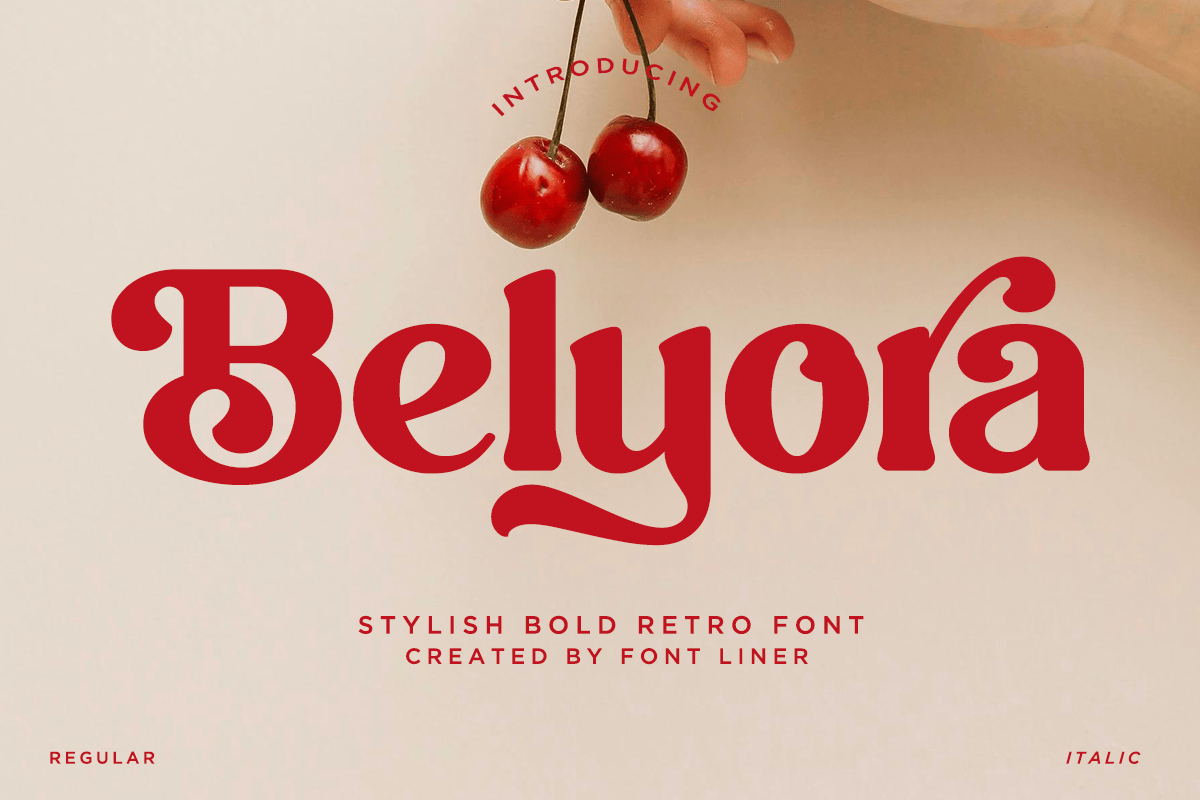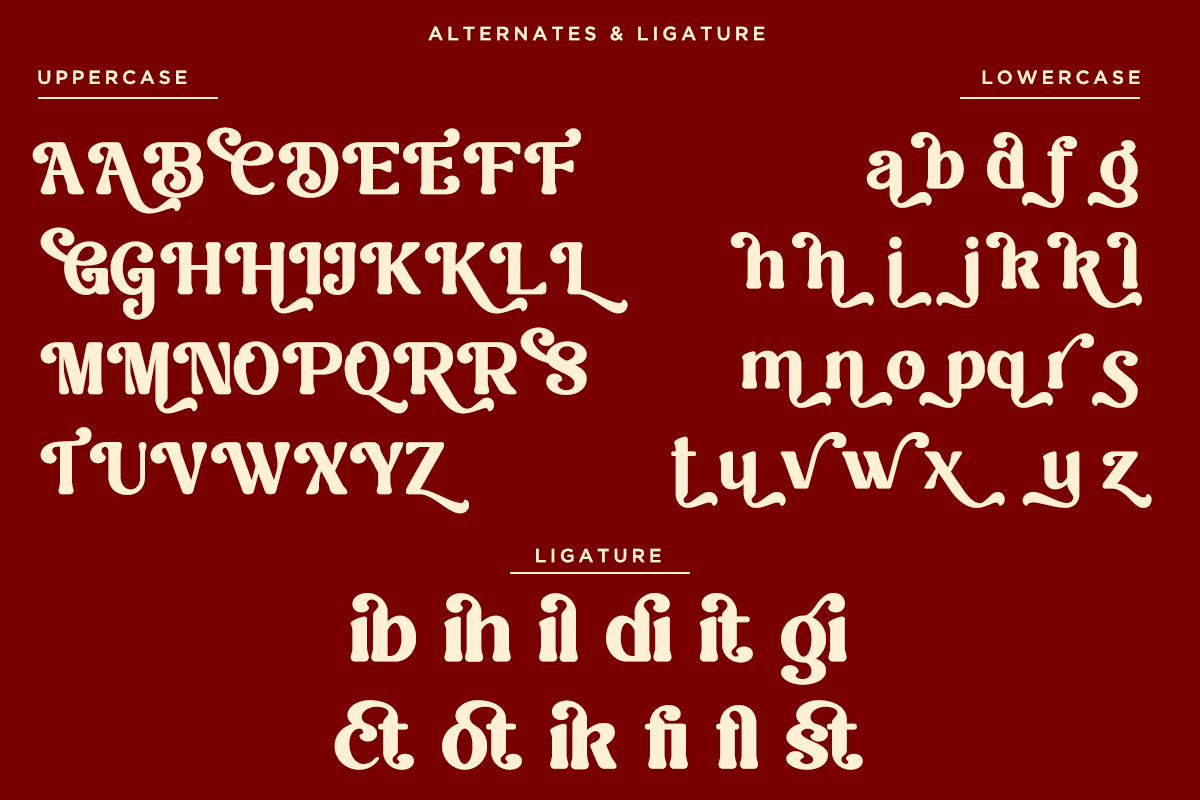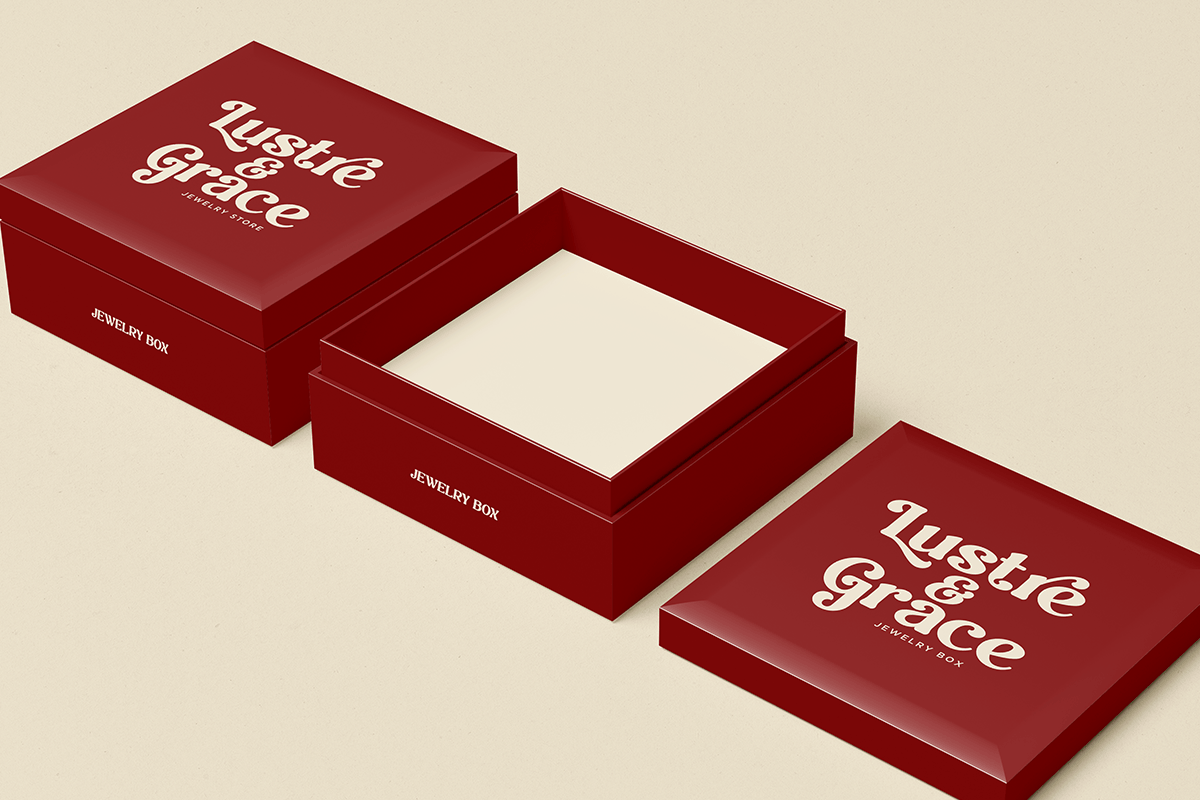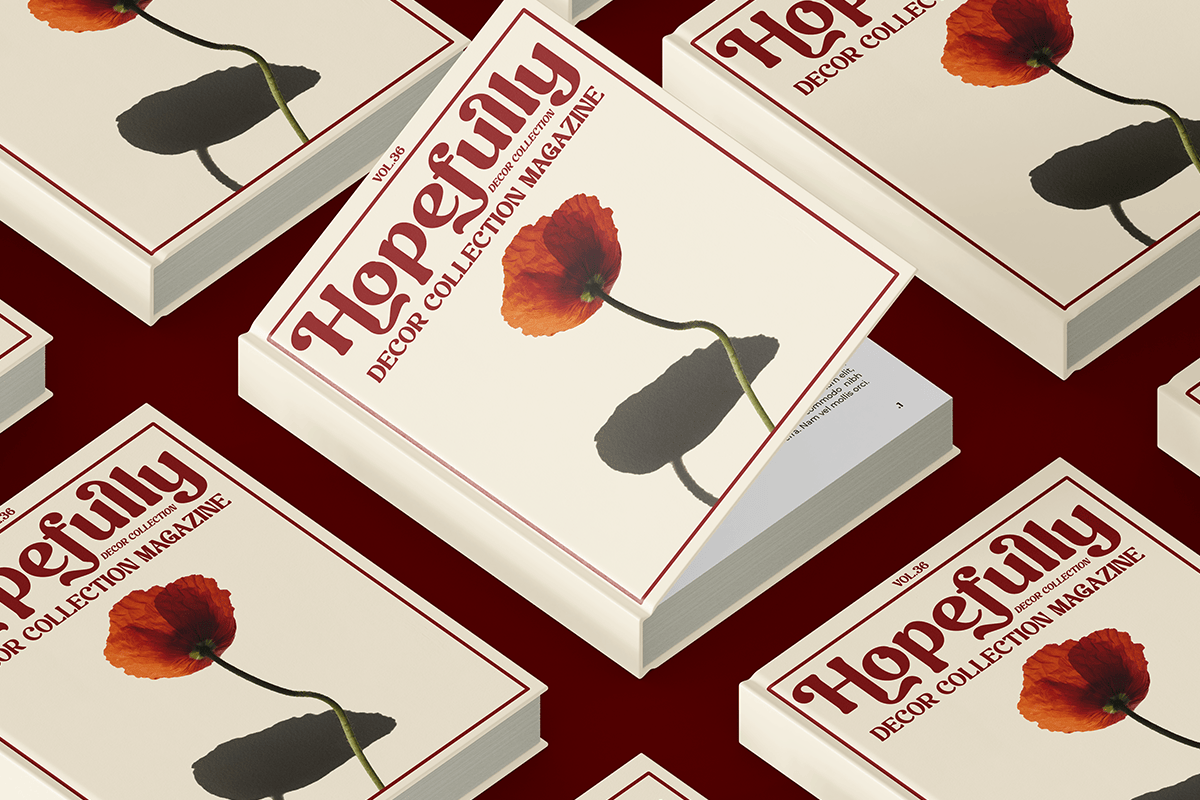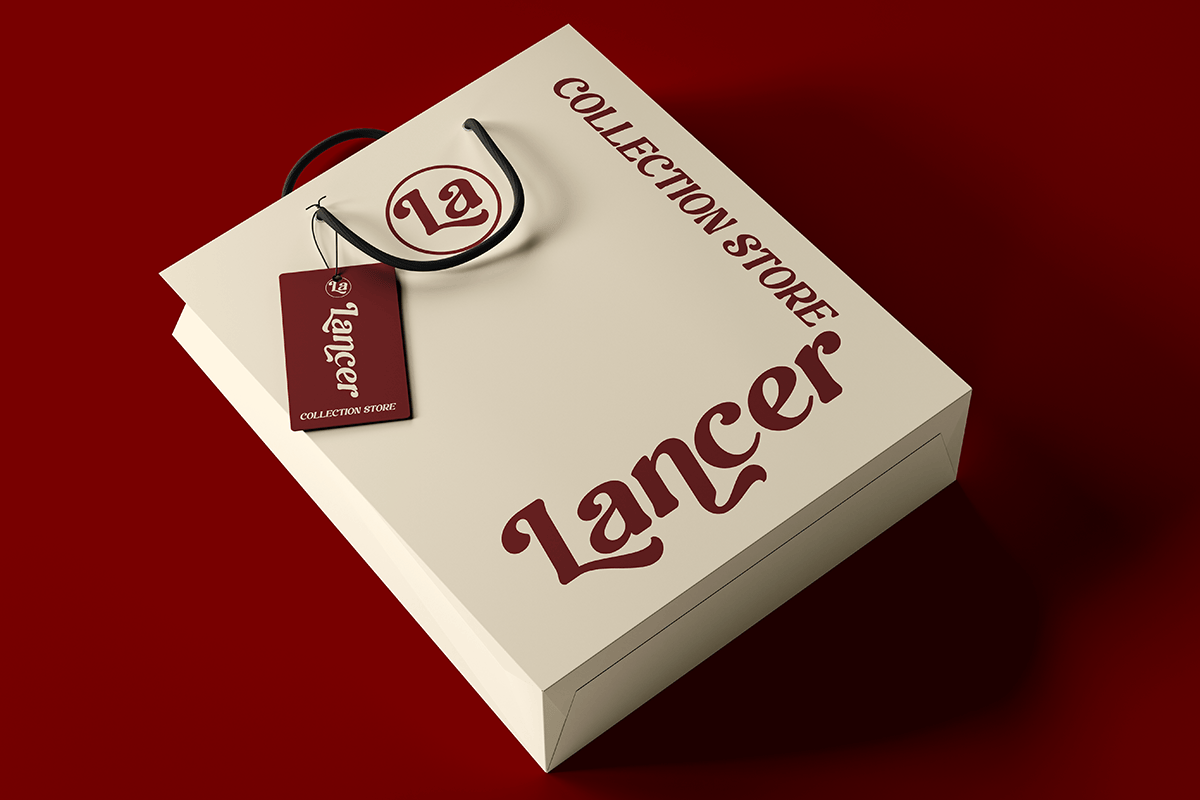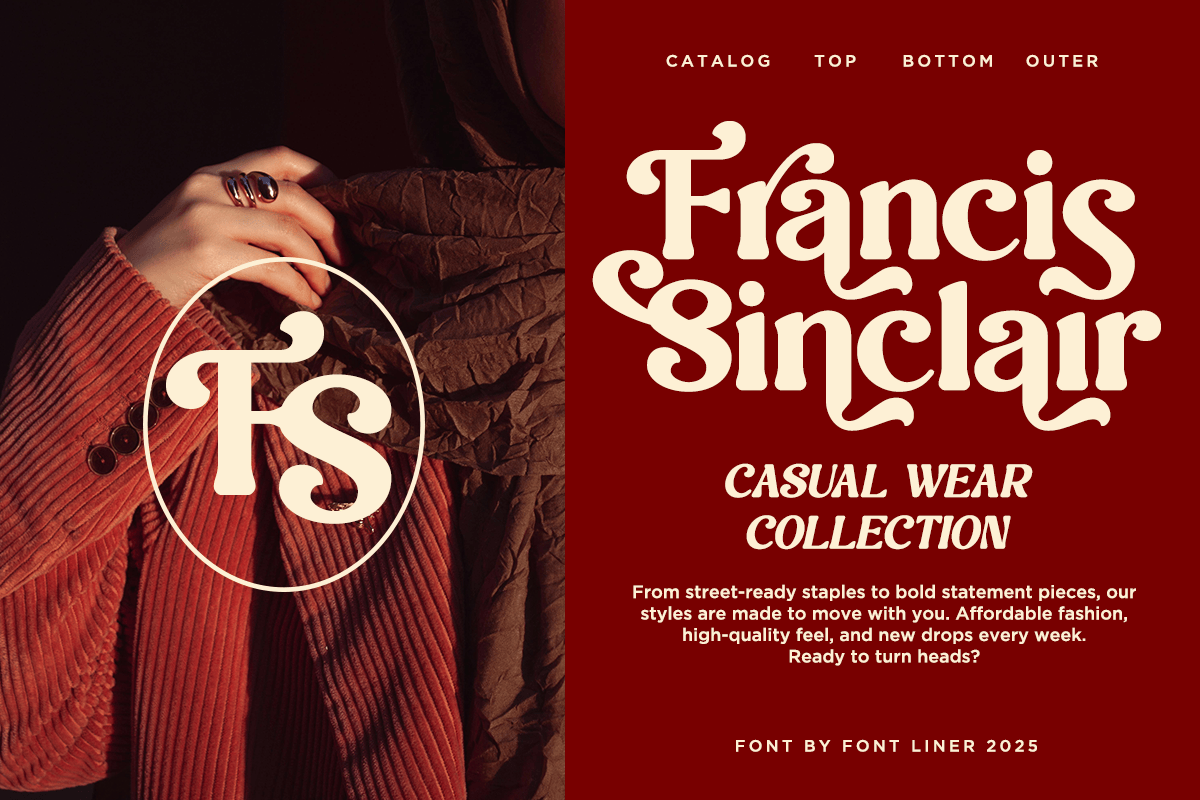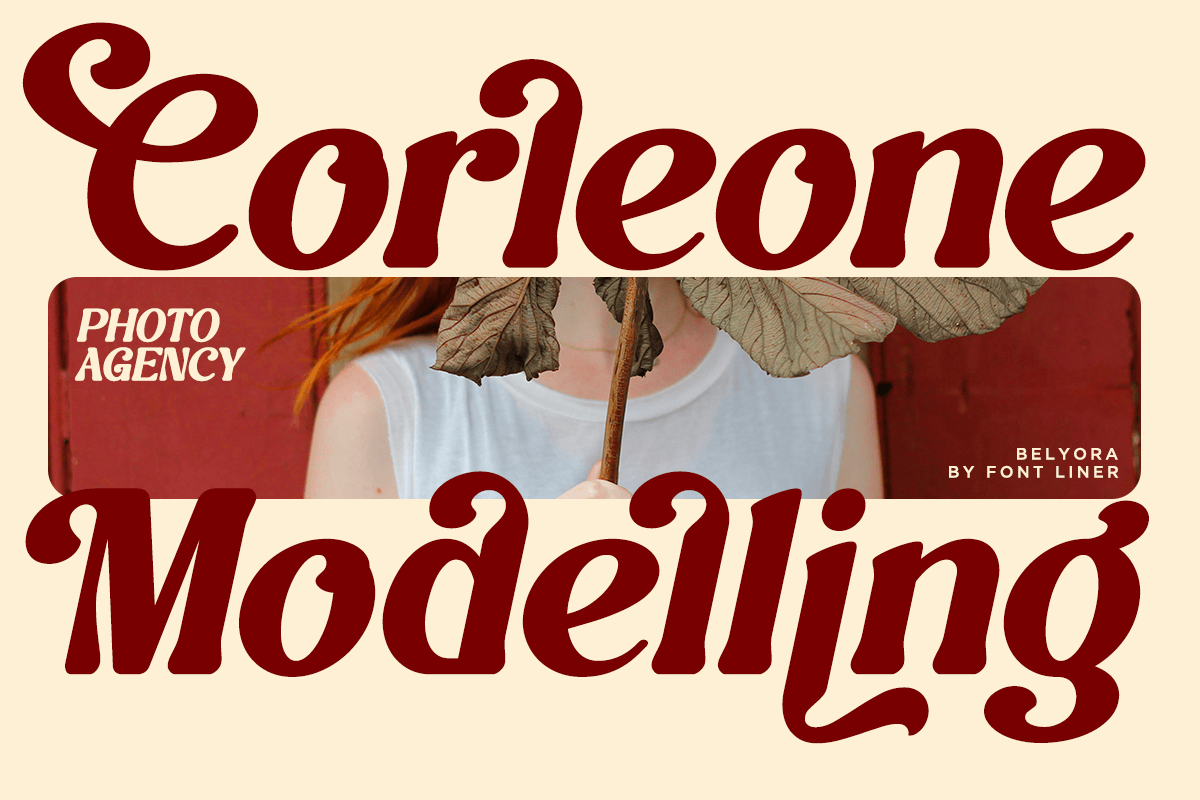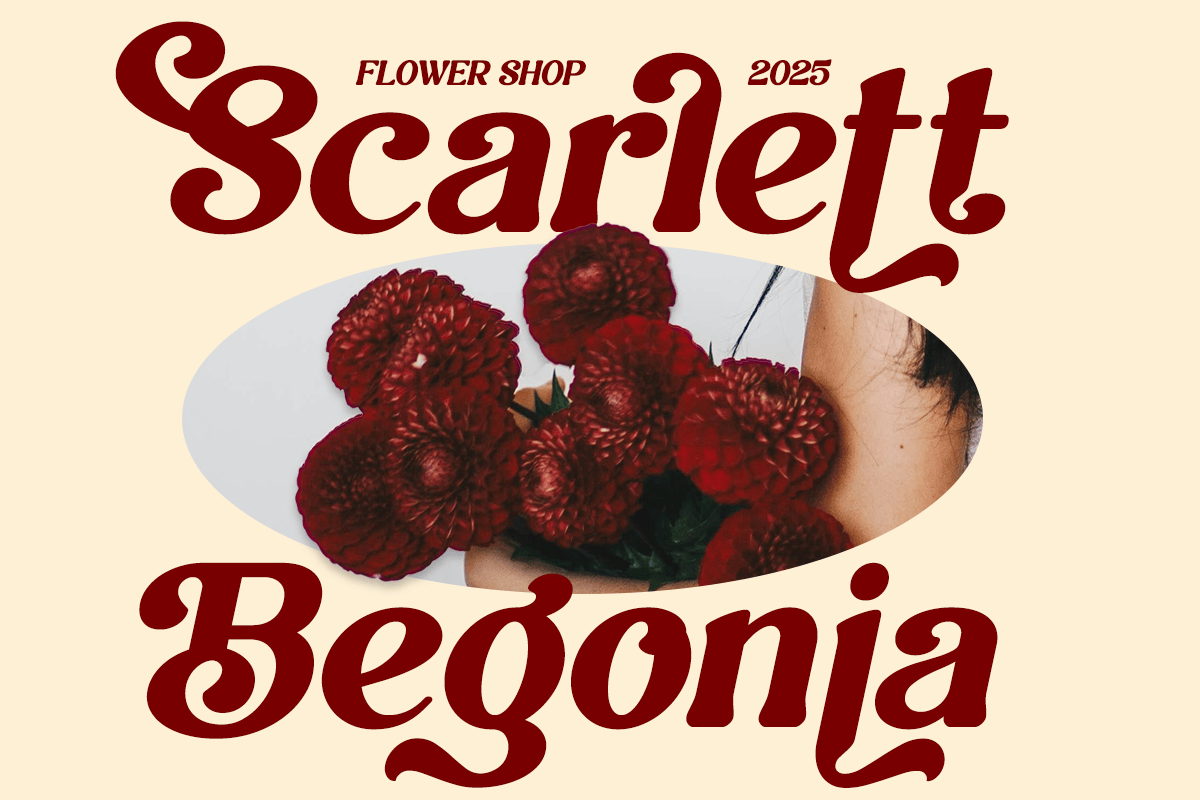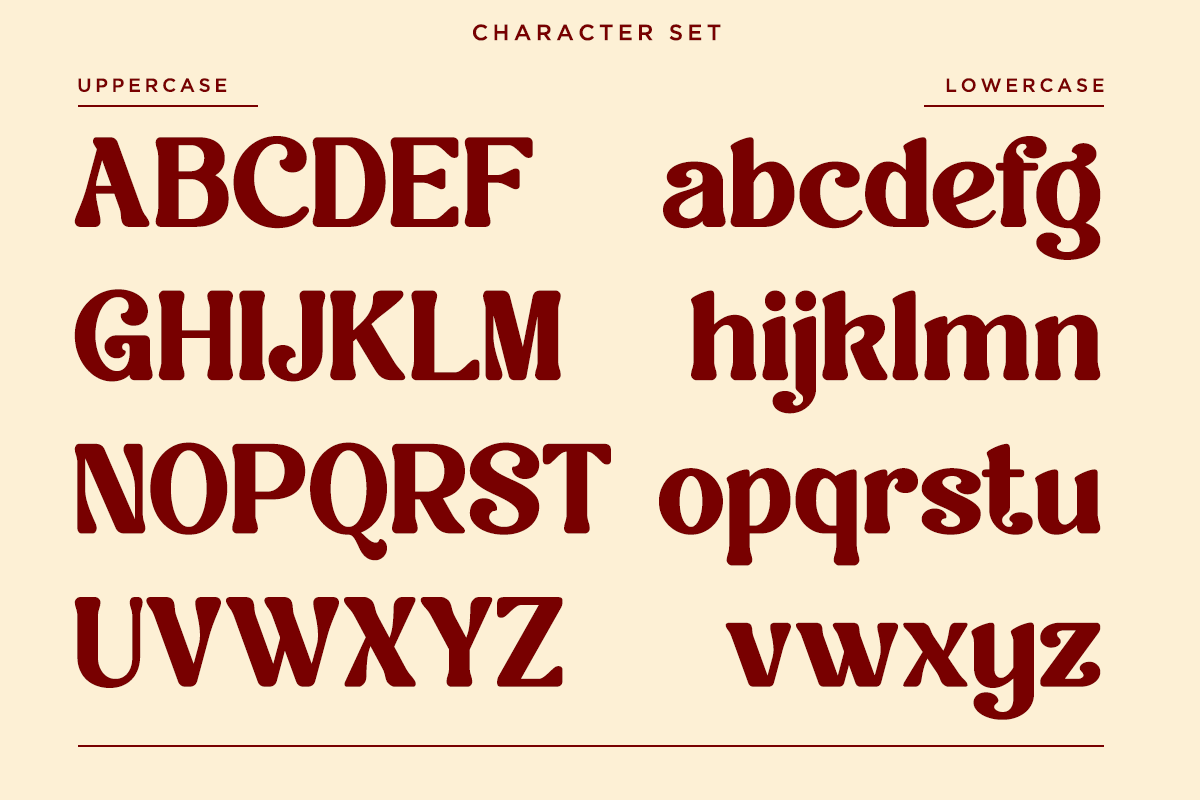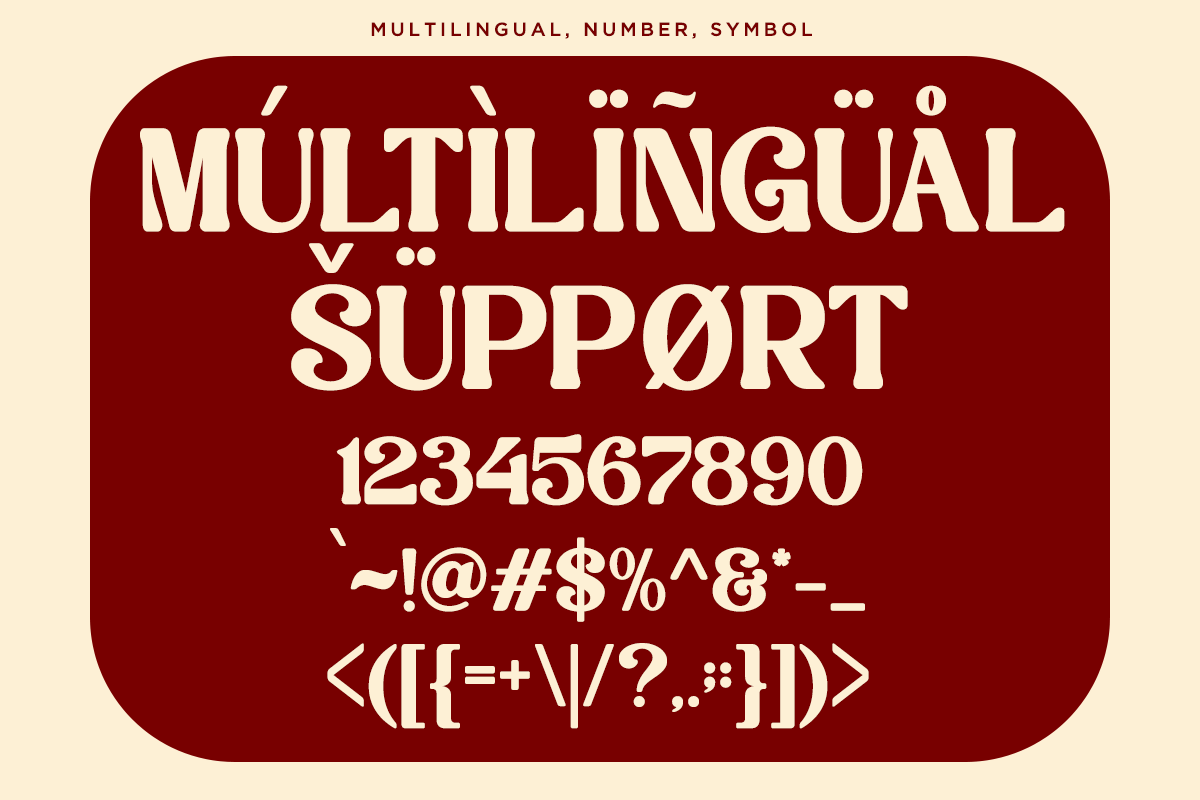
Belyora – Bold Retro Font
Belyora is a bold retro display font inspired by vintage advertising, classic packaging, and nostalgic signage from the golden era of typography. With its expressive curves, chunky letterforms, decorative swashes, and eye-catching ligatures, Belyora delivers a warm, playful personality while maintaining a premium handcrafted appearance. It is designed to create memorable headlines and distinctive brand identities that stand out across any medium.
Perfect for branding, logos, restaurants, cafés, food packaging, beverage labels, fashion collections, product packaging, posters, magazines, social media, and editorial projects, Belyora brings timeless retro charm with a fresh contemporary touch. Whether you’re designing artisan products, boutique branding, or promotional campaigns, this font provides the bold visual impact needed to capture attention instantly.
Belyora includes regular and italic styles, uppercase and lowercase characters, beautiful ligatures, stylistic alternates, multilingual support, numerals, punctuation, and symbols for maximum design flexibility. From vintage-inspired logos and packaging to modern lifestyle brands and creative marketing materials, Belyora is the ideal retro display font for designers who want authentic character with professional versatility.
– Stylistic alternates
– Uppercase, Lowercase & Ligatures